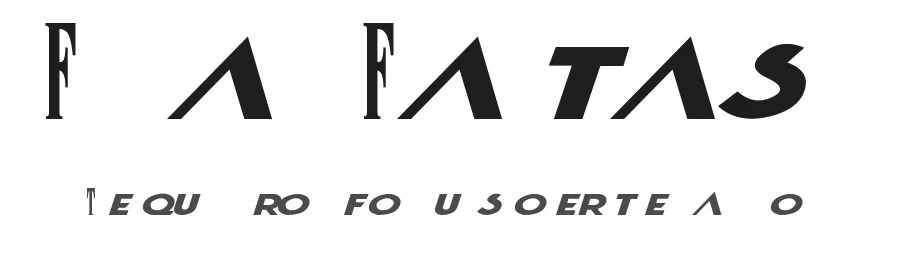
About Muffaroo Font
Muffaroo is a decorative font designed by imagex. It includes 160 glyphs, a regular weight, TTF (TrueType) format, and 196 languages. Muffaroo is free to download; check the license details on this page before commercial use. Decorative fonts like Muffaroo work best for logos, posters, packaging, and standout headlines.
Muffaroo Font is a decorative font that shines as a display or heading face. Pair it with a clean sans-serif or serif font for body text β the contrast creates a clear hierarchy while the two styles stay balanced and easy to read.